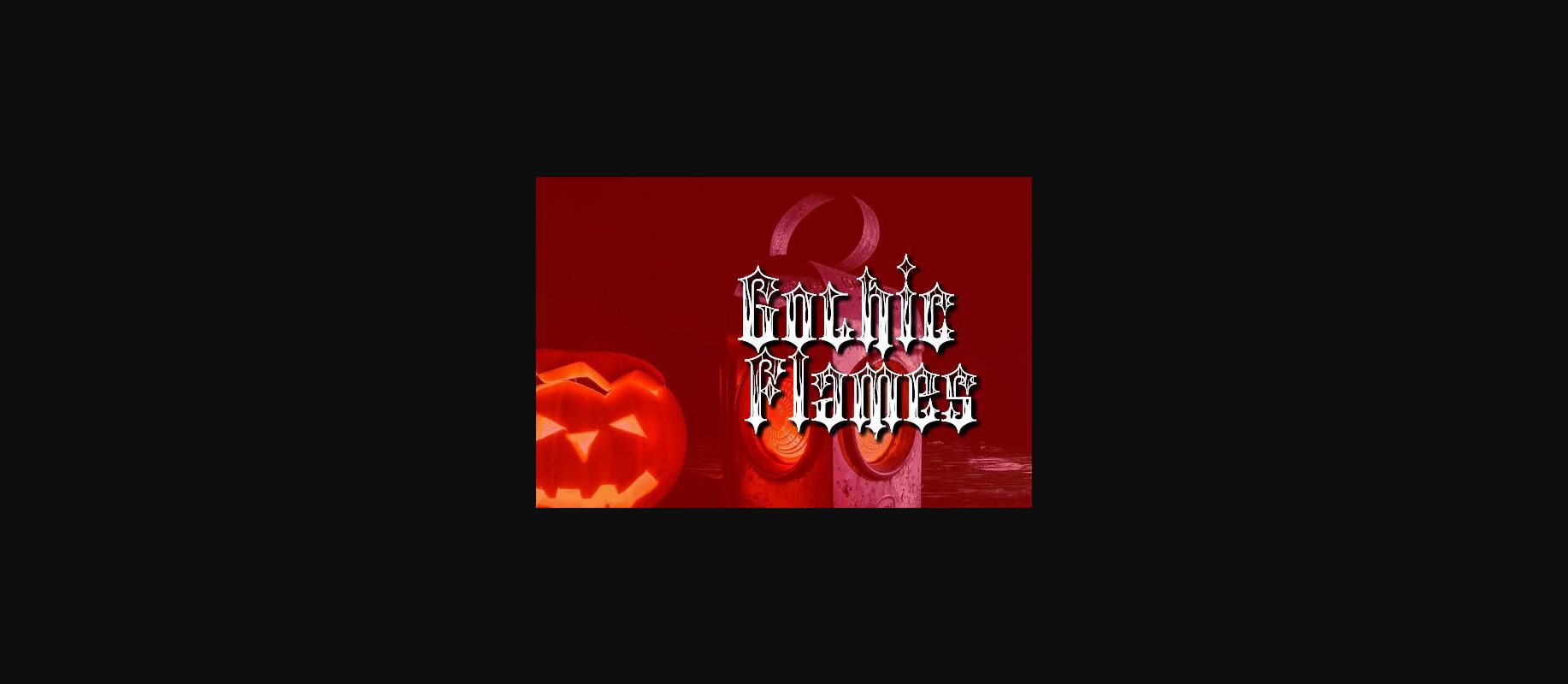
Gothic Flames Font
About Gothic Flames Font
Gothic Flames is an imposing and vintage blackletter font. This font is ideal for writing web designs, business cards, or pretty much anything else that requires a bold touch.